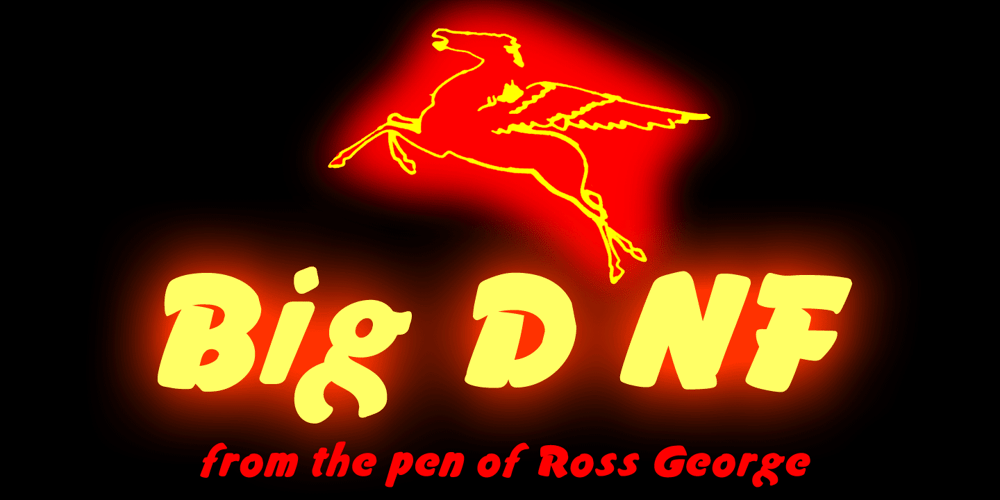
Big D NF Font Family was designed by Ross F. George, Nick Curtis and published by Nick’s Fonts. Big D NF contains 1 styles and family package options. Another Speedball pen alphabet from master draftsman Ross George, this face is bold and lively. Both versions of this font support the Latin 1252, Central European 1250, Turkish 1254 and Baltic 1257 codepages.